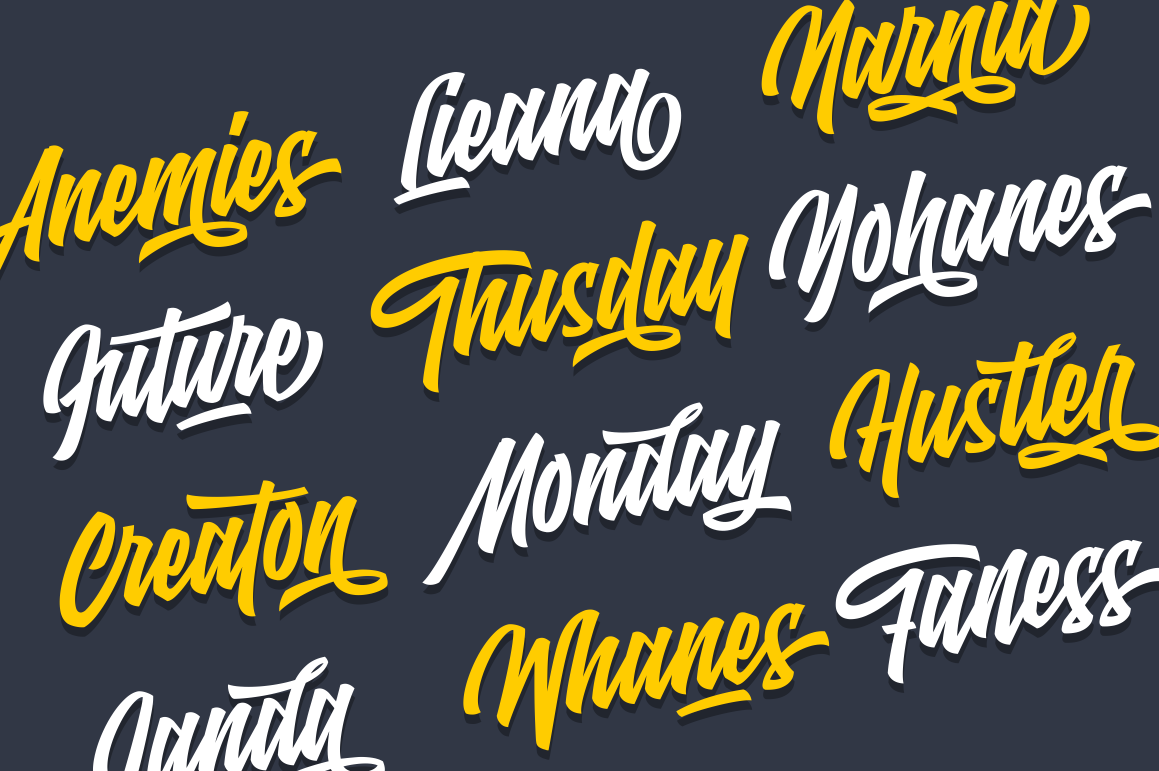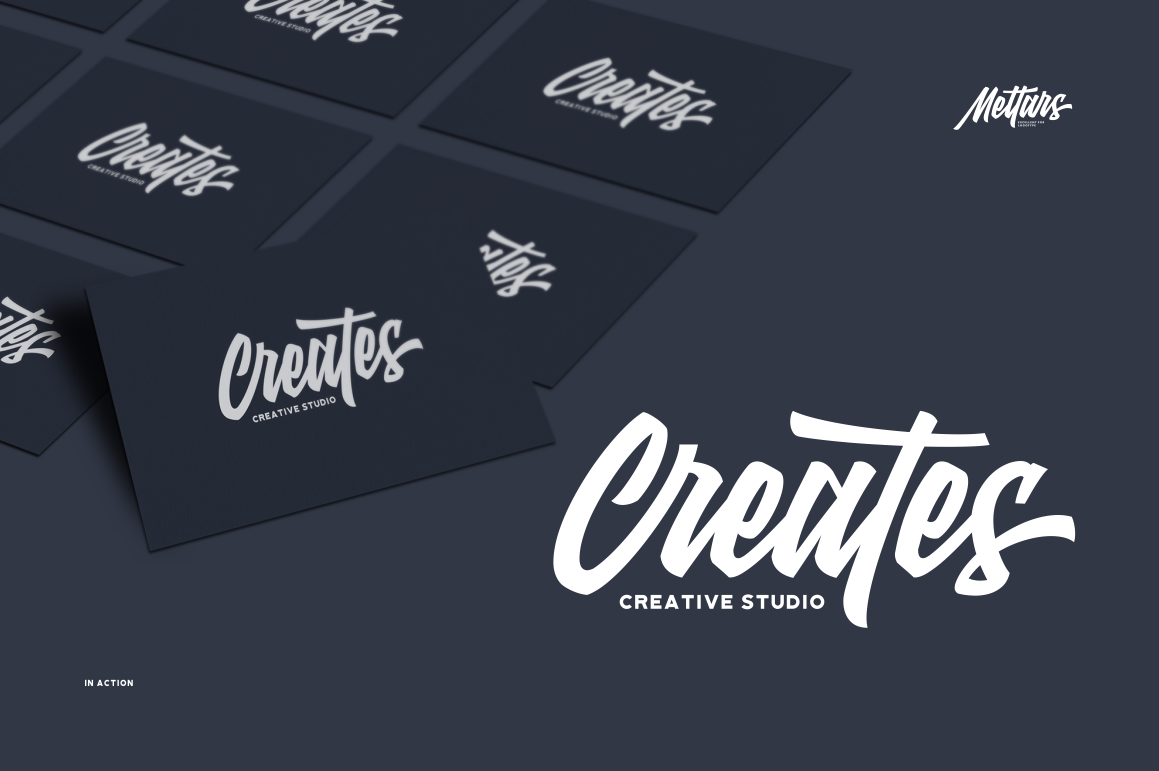
Mettars Font
Mettars a typeface inspired by the signature bold, we created to provide ease in completing the work as typography, logotype, poster, title, T-shirts and other creative projects, more than 300 glyph is certainly very easy for you to it.
Stylistic Alternate
Stylistic Set
Swash Variant
Ornament
Ligature
Contextual Alternate